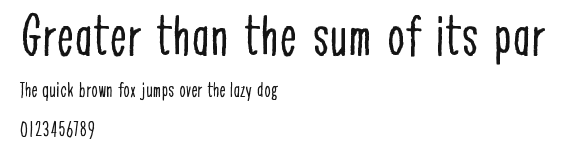
Greater than the sum of its par Preview
Greater than the sum of its par.ttf is a modern, elegant sans-serif font designed for ultimate readability and visual harmony. Perfect for branding, headlines, web design, and print materials.